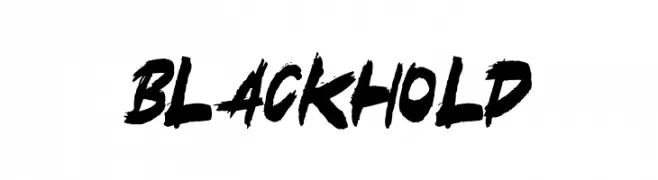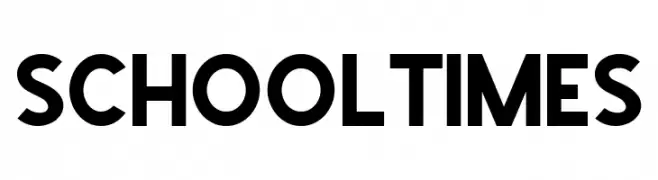
• Orange Days
A playful, bold font with rounded, thick strokes and a whimsical style.
• School Times
A bold, geometric font with clean lines and a modern aesthetic.
• Pineapple Days
A playful, bold font with rounded, thick strokes and a hand-drawn feel.
• Marie Clara
A playful, hand-drawn font with a whimsical and casual style.
• Burger Extra
A bold, playful font with exaggerated curves and angles.
• Black Hold
A bold, brush script font with textured, expressive strokes.
• Jaya Baru
A playful, bold font with rounded edges and a whimsical style.
• Greywall
A bold, distressed font with a rugged, edgy appearance.
• First School
A playful, rounded font with a hand-drawn, friendly appearance.
• Kepolu
A bold, brush-style font with dynamic, hand-drawn characteristics.